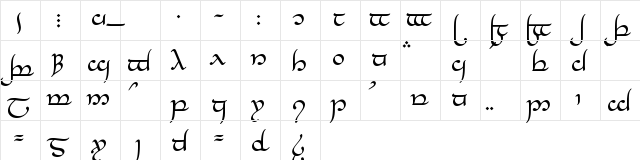
Tengwar-Elesil Medium Free Font
Tengwar-Elesil Medium
Design Context for Tengwar-Elesil
Tengwar-Elesil is a composed and adaptable typeface that performs quietly and consistently across a wide range of design contexts.
Pro Tip: Use Tengwar-Elesil in both headline and body roles to test its range before committing to a single application.